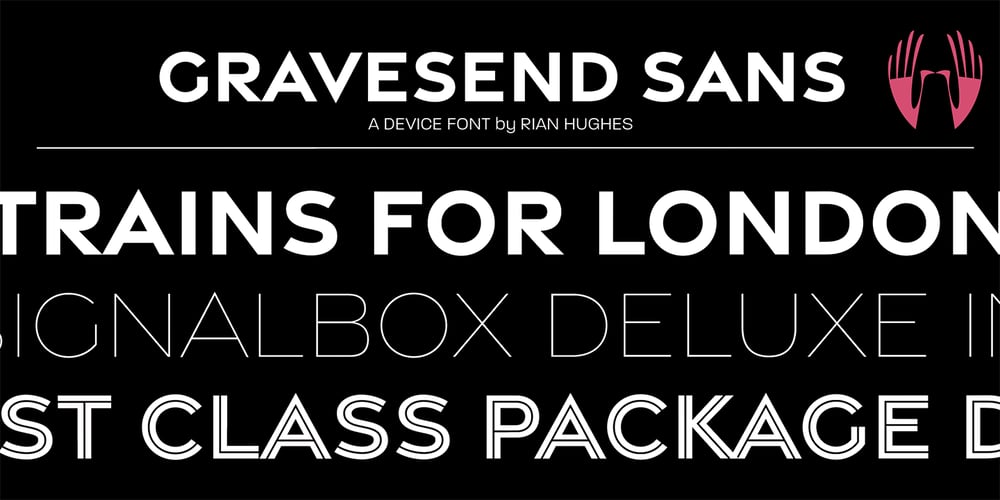
Gravesend Sans
Gravesend Sans font
Gravesend Sans Font Family was designed by Rian Hughes and published by Device. Gravesend Sans contains 9 styles and family package options. Smart, legible and elegant, Gravesend Sans is a based on the unique typeface used for the iconic grass-green signage for the Southern Railway. In existence from 1923 to 1948, when the network was nationalised, the Southern Railway linked London with the Channel ports, South West England, the South coast resorts and Kent. The same design was also used for the ‘hawkeye’ signs on the London, Midland and Scottish Railway, differentiated by black letters on a yellow background.Reference for each letter was taken from vintage ‘target’ station nameplates and other platform signage. The rarest letters were the Q, seen in Queens Road Battersea, the X, seen in East Brixton, and the Z, used in Maze Hill, site of an infamous train crash in 1958. Being hand-made, the letters often differ in width and thickness. There was no lower case. The Bluebell Railway, a heritage steam line, runs over part of the old Southern Railway network and uses a very similar type.The design of the numbers differed considerably, but here have been taken from the Device 112 Hours font Smokebox. As well identifying platforms, they were used on the front of the steam engine’s smokebox, hence the name, and stylistically are more in keeping with the letters than some of the squarer versions that can be seen in old photographs.William Caslon IV is credited with the first Latin sans-serif type, shown in a 1816 Caslon specimen book. ‘Two Lines English Egyptian’, as it was called, was caps-only, and there are several other correlations between that type design and this one.Includes a selection of authentic arrows and manicules, plus abbreviated ligatures such as ‘St.’ (Saint or Street) ‘Rd.’ (Road) and ‘Jn.’ (Junction). The Cameo version includes many graphic banner elements that can be freely combined.